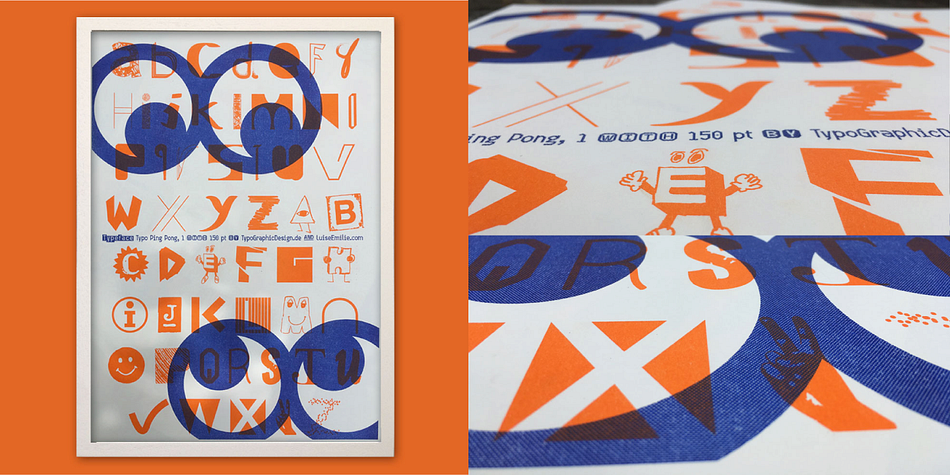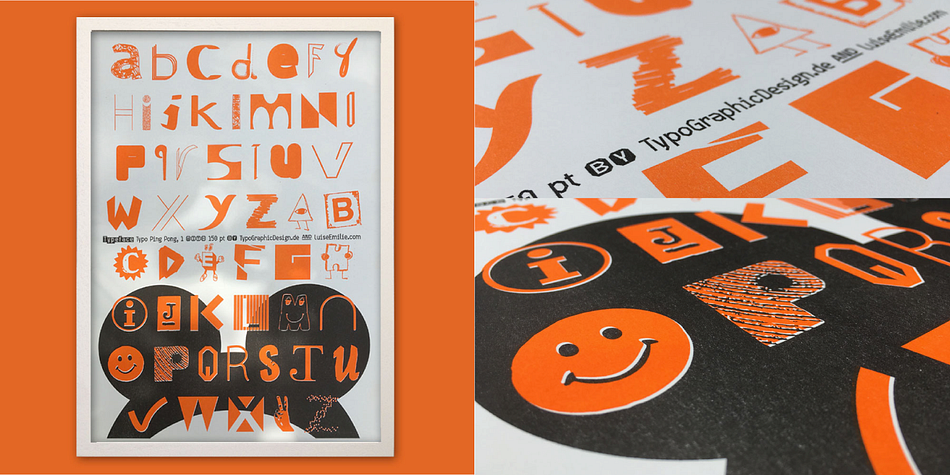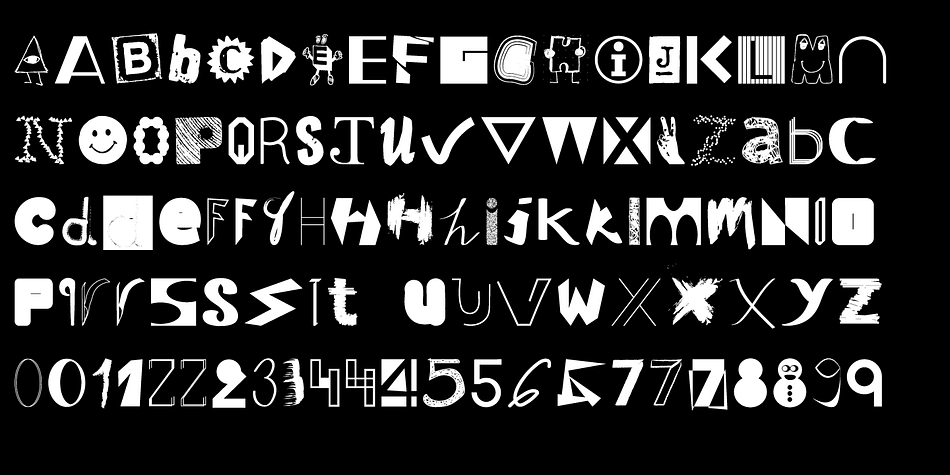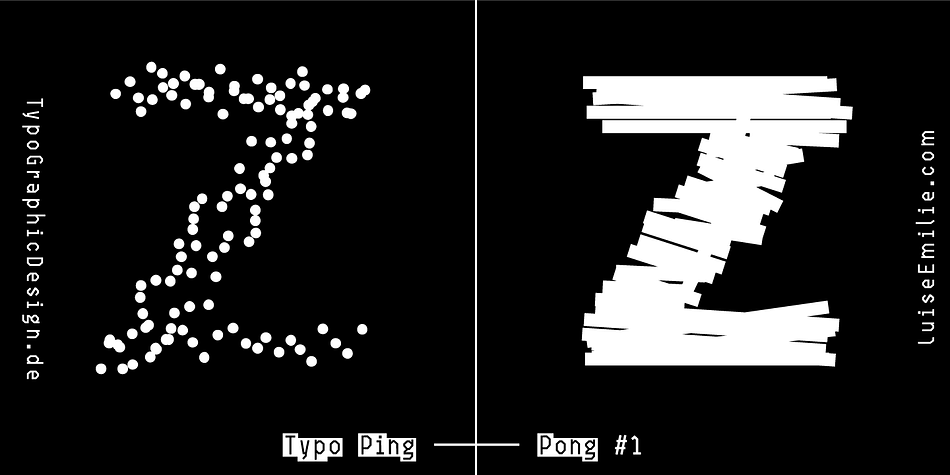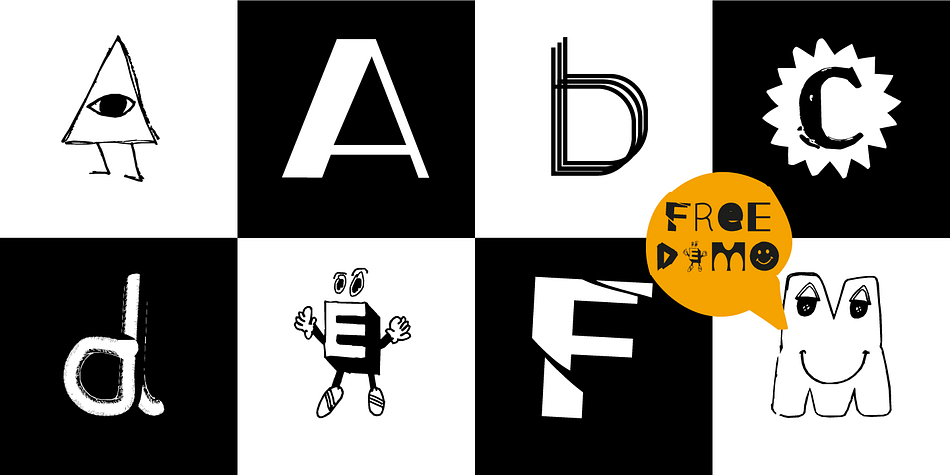
Designed by Manuel Viergutz, Typo Ping Pong is a hand drawn and novelty font published by Typo Graphic Design.
The typeface Typo Ping Pong #1 is designed as a font-collabo from Manuel Viergutz × Luise Herke from 2020 for the font foundry Typo Graphic Design.
For use in logos, magazines, posters, advertisement plus as webfont for decorative headlines. The font works best for display size.
■ Font Category: Display for headline size
■ Type Designer: Manuel Viergutz × Luise Herke